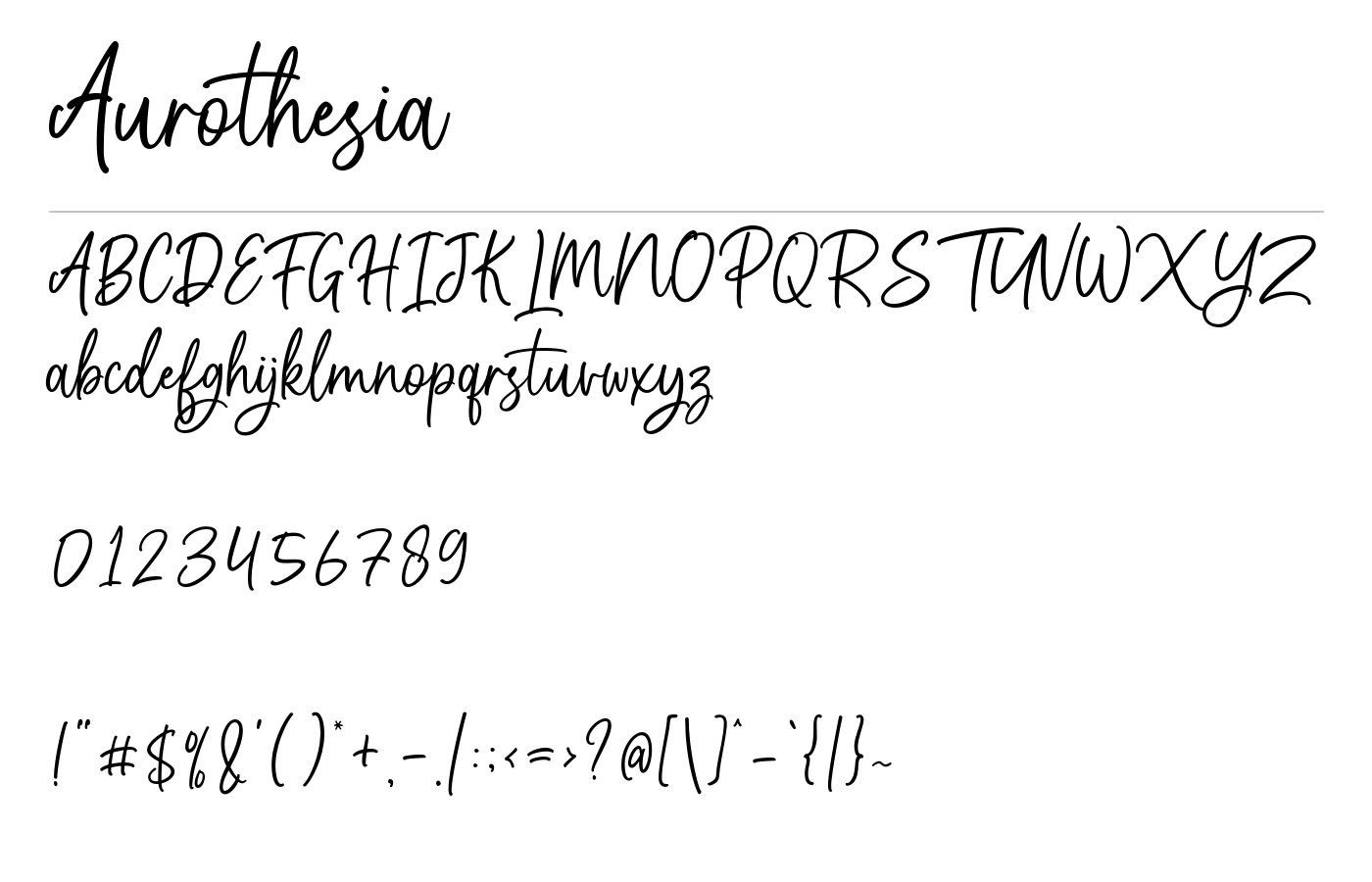
Aurothesia is a lively and elegant script font that mimics natural handwriting with its smooth, flowing strokes and subtle variations in line thickness. Its thin, delicate lines and slightly elongated letterforms give it a sophisticated yet approachable feel, making it perfect for personal branding, invitations, and stylish editorial designs where a warm, authentic touch is desired. This font excels in creating a friendly and elegant atmosphere, ideal for creative projects that want to convey personality and charm.
Aurothesia Font
About Aurothesia Font
| Font family | Aurothesia Font |
| Designer | Faisal Tanjung |